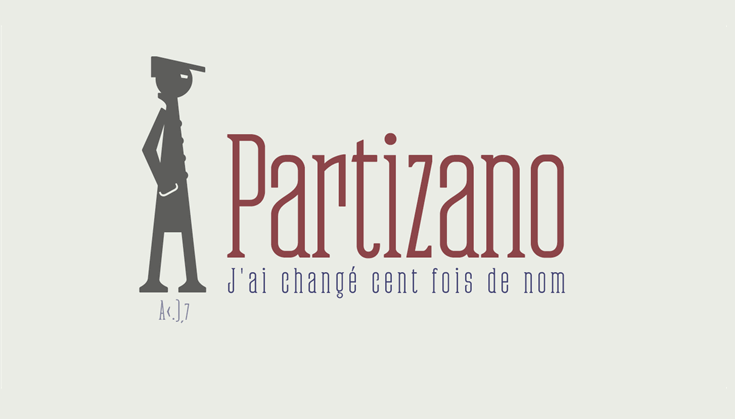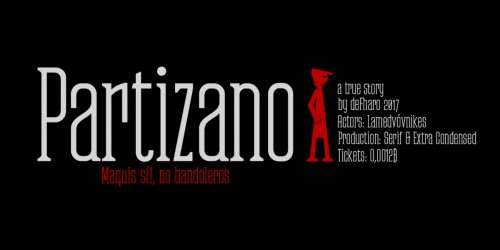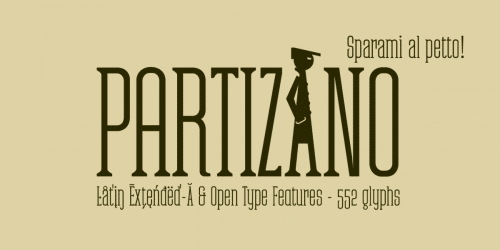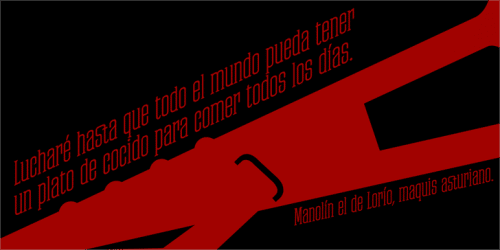
Partizano Serif Font is very stylish retro condensed extra serif geometric typeface for use in publishing, graphic design, and advertising where you need a unique typeface with great space savings for headlines and paragraph texts, designed by deFharo.
It has a complete set of capital letters and numbers and monetary symbols in small caps, also alternative letters such as the capital ‘A’ or the lower case ‘a’ type alpha.